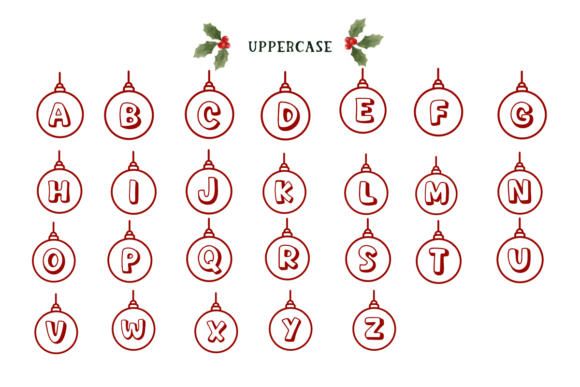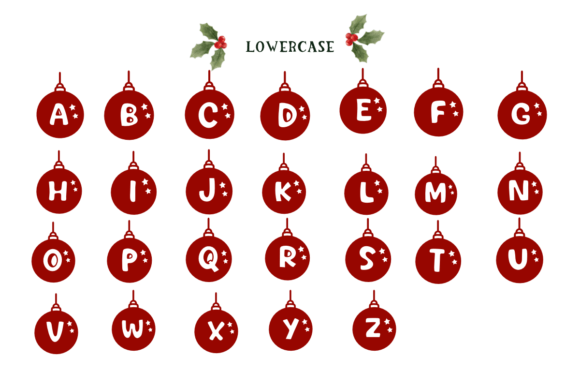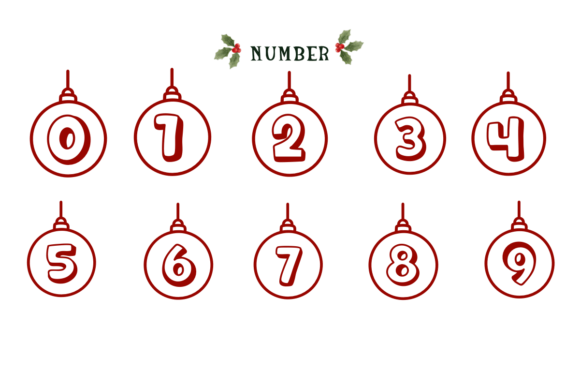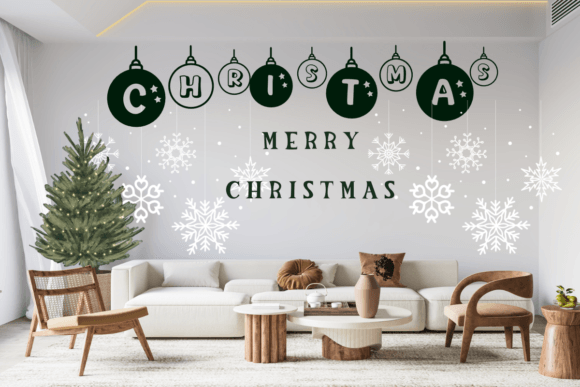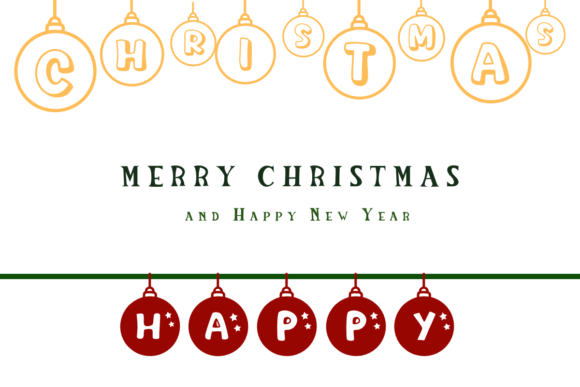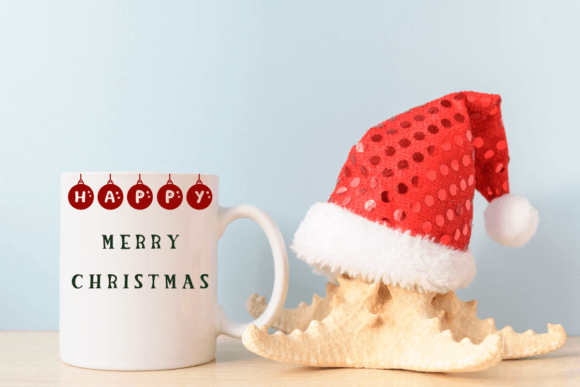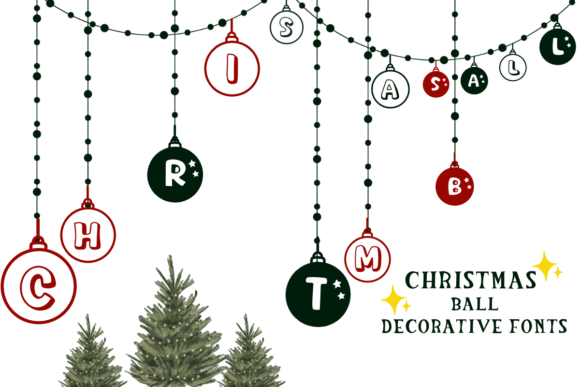
Unveiling Christmas Ball: The Ultimate Decorative Font for Your Creative Projects
Are you tired of using the same old fonts for your designs? Look no further! Introducing Christmas Ball, a beautifully crafted, decorative font that’s sure to add a touch of personality to your work. Whether you’re a designer, crafter, or simply someone who loves to get creative, this versatile typeface is perfect for a wide range of projects.
The Perfect Font for Personal Touches
Christmas Ball is ideal for adding that intimate, human touch to your daily musings, notes, and greeting cards. Its unique and playful design makes it perfect for scribbling in your diary, jotting down notes, or curating personalized messages for loved ones. But don’t be fooled – its potential goes far beyond these uses.
This font has enough charm to embellish an array of designs, including:
• Banners: Add a festive touch to your banners with Christmas Ball’s playful and decorative design.
• Stationery: Elevate your stationery game with this beautiful font, perfect for invitations, thank-you cards, and more.
• T-shirts and apparel: Give your designs a personalized touch with Christmas Ball’s unique and eye-catching design.
• Coffee mugs and ceramics: Add a dash of personality to your coffee mugs, water bottles, and other ceramic designs.
• Social media posts: Stand out on social media with Christmas Ball’s decorative design, perfect for graphics, quotes, and more.
Why Choose Christmas Ball?
So, what sets Christmas Ball apart from other fonts? Here are just a few reasons why this decorative font is a must-have for designers and crafters:
• Versatility: Christmas Ball is perfect for a wide range of projects, from personal to commercial use.
• Unique design: This font’s playful and decorative design is sure to add a touch of personality to your work.
• Ease of use: Christmas Ball is easy to use and pairs well with a variety of other fonts and design elements.
• High-quality: This font is beautifully crafted, ensuring a high-quality design that’s perfect for printing and digital use.
Tips for Using Christmas Ball
To get the most out of Christmas Ball, here are a few tips to keep in mind:
• Experiment with sizes: Play around with different font sizes to add visual interest to your designs.
• Pair with other fonts: Combine Christmas Ball with other fonts to create a unique and eye-catching design.
• Use in combination with images: Add an extra layer of depth to your designs by pairing Christmas Ball with images and graphics.
• Don’t be afraid to get creative: The possibilities are endless with Christmas Ball – don’t be afraid to try new and innovative things!
In conclusion, Christmas Ball is a beautifully crafted, decorative font that’s perfect for designers, crafters, and anyone looking to add a touch of personality to their work. With its versatility, unique design, and ease of use, this font is sure to become a go-to for a wide range of creative projects. So why wait? Download Christmas Ball today and start infusing your designs with creativity and personality!